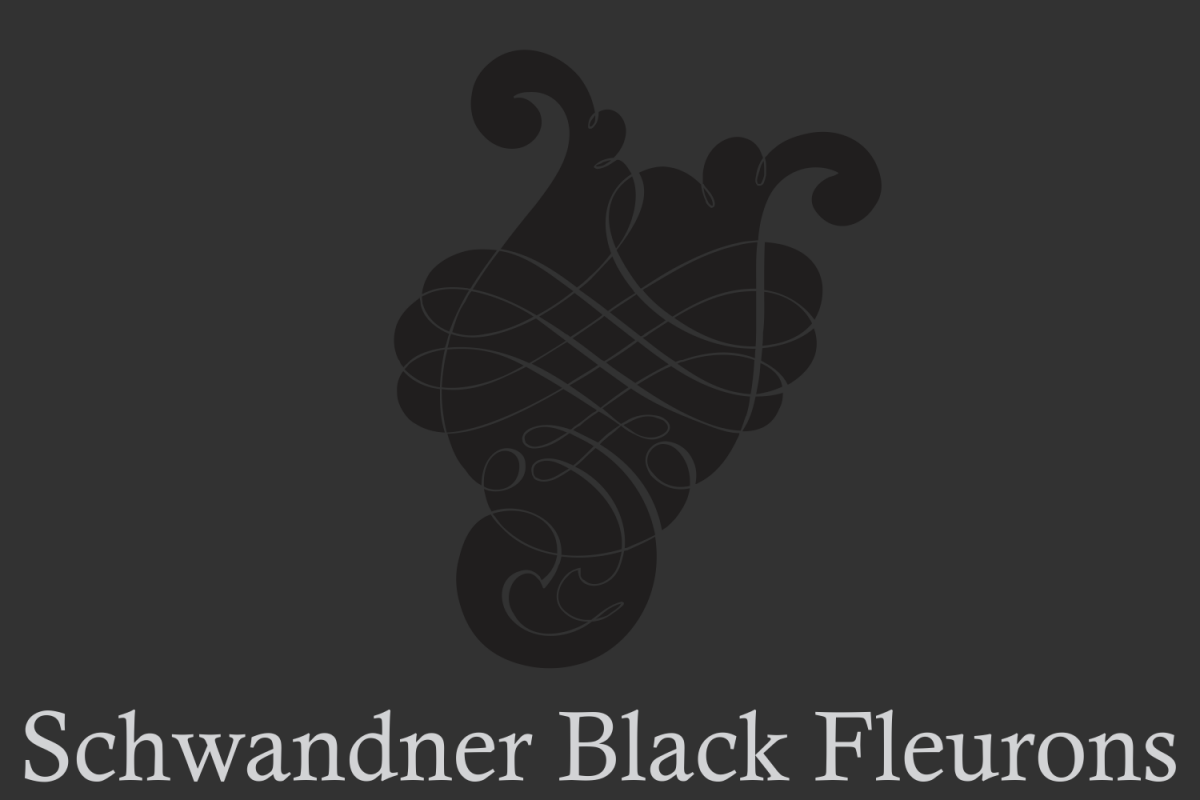
Schwandner Black Fleurons
Highly intricate ornaments inspired from the work of Johann Georg Schwandner (1716- 1791). See too other fontS of this family,
If you’re taking a formal approach to your Christmas designs, Schwandner Ornaments from Intellecta Design will provide unparalleled elegance and sophistication. The ornaments and fleurons in this set are intricately drawn, adding a touch of the Victorian era to cards, envelopes, gift tags, and place cards worthy of the grandest holiday feast.